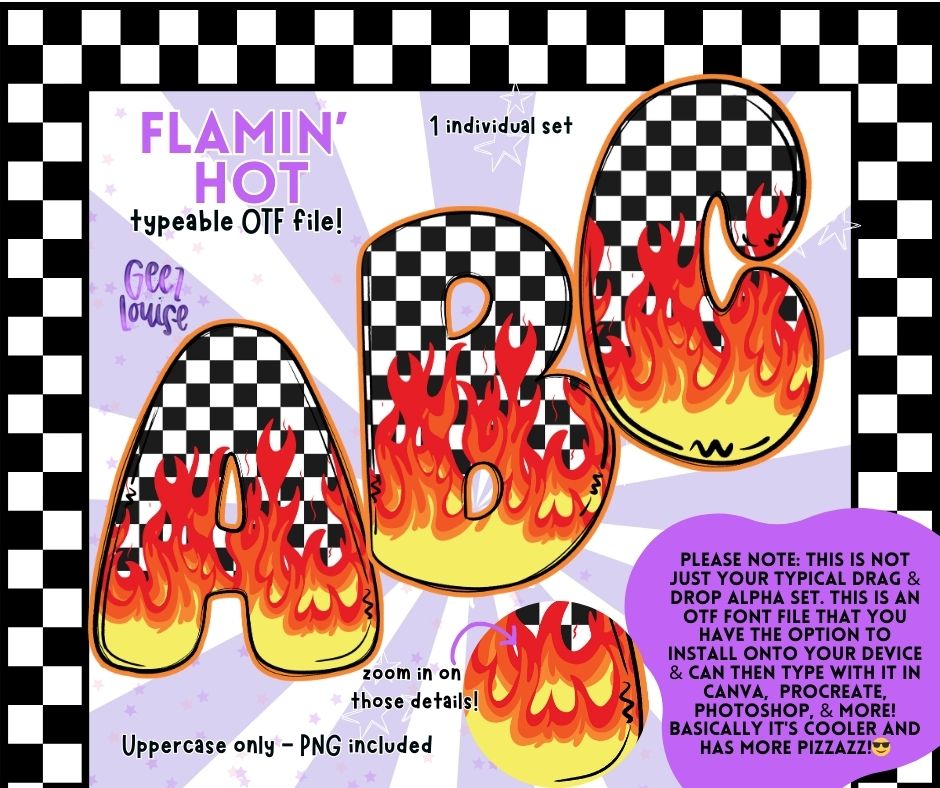
Flamin' Hot - TYPEABLE OTF Font - Alpha Set - Digital Download- PNG
🔥 Checkered Flame OTF Alpha – Bold & Edgy! 🔥🏁
Turn up the heat on your designs with the Checkered Flame OTF Alpha! This typeable OTF font + PNG set combines classic racing checkers with blazing flames, making it perfect for bold, high-energy projects.
✔ Edgy Racing & Fire Theme – Perfect for motorsports, streetwear, rock-inspired graphics, and more!